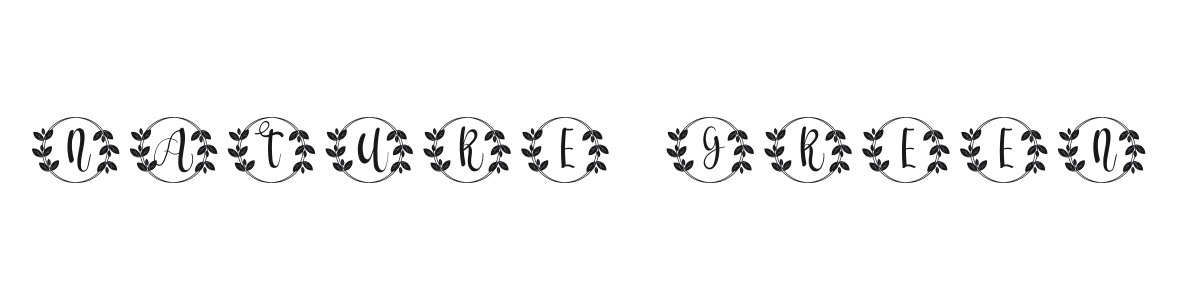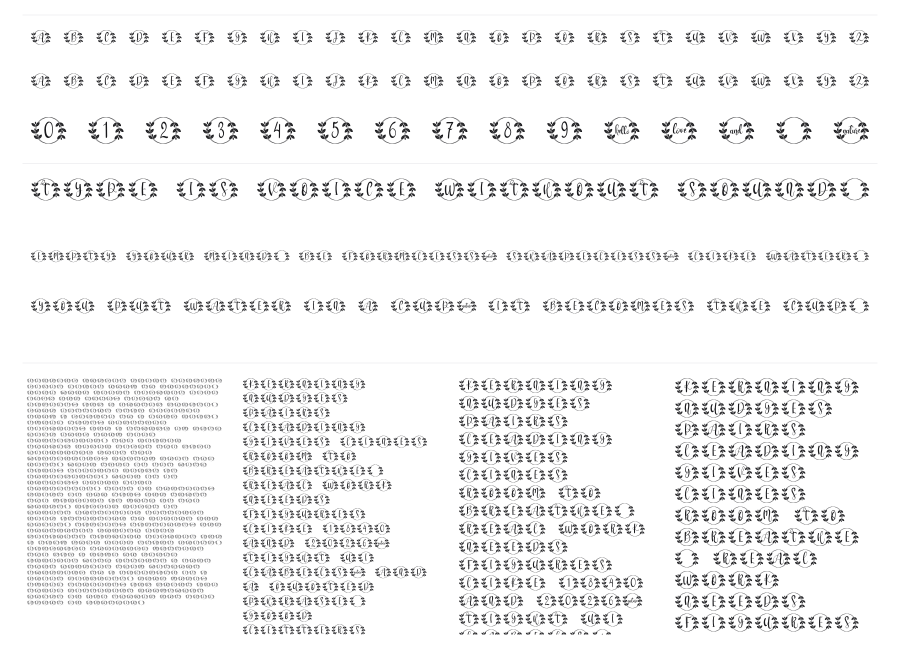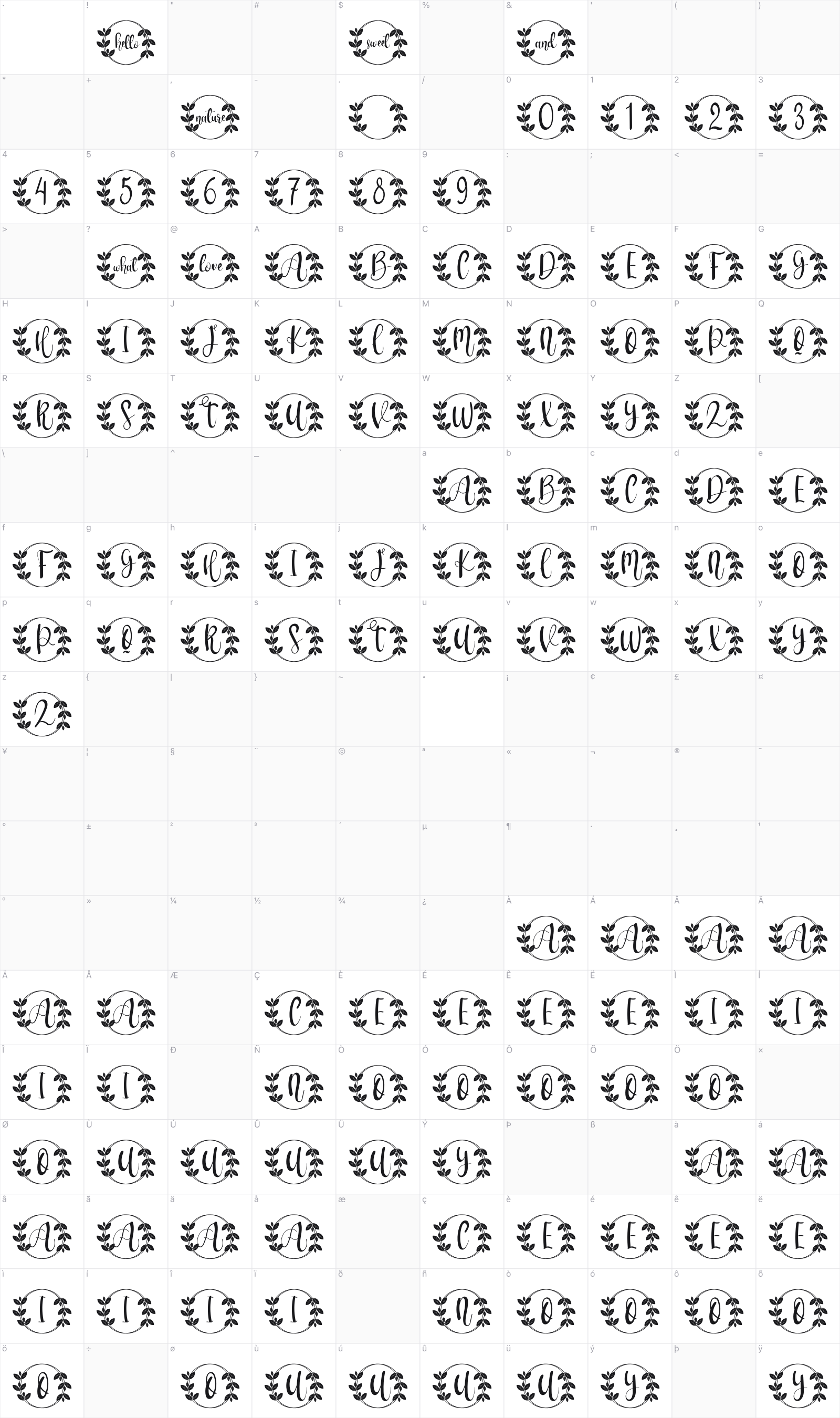
Nature Green
Nature Green is a monogram font where every letter sits inside a hand-drawn circular wreath of delicate leaves and botanical sprigs. The combination of flowing script characters with lush organic framing gives each initial a finished, emblem-like quality. It suits wedding stationery, artisanal branding, and any project that calls for a natural, handcrafted touch.